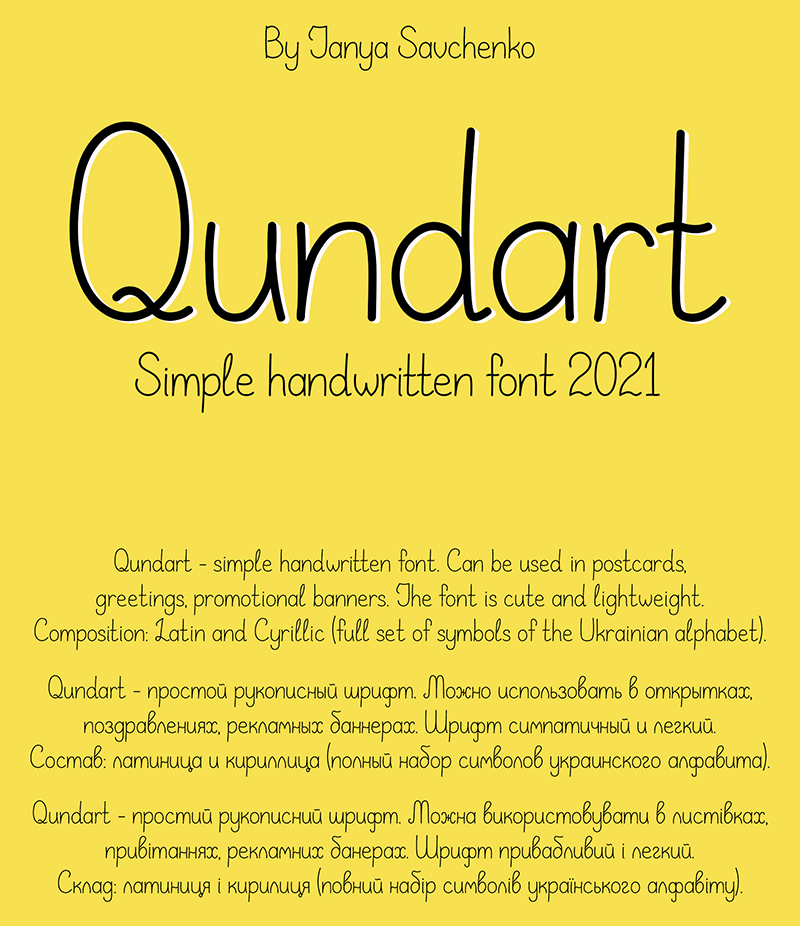
Preview and download Qundart Font. Created by Tanya Savchenko in Script Various styles with Demo license.
Font name: | Qundart |
Author: | Tanya Savchenko |
Hello, check out the new font Qundart. This is a free demo version of the font for personal use only. Buy the full version from the link https://www.myfonts.com/fonts/tanya-savchenko/qundart/ Qundart � simple handwritten font. Can be used in postcards, greetings, promotional banners. The font is cute and lightweight. Composition: Latin and Cyrillic (full set of symbols of the Ukrainian alphabet). View the font for more details here: https://www.behance.net/gallery/126010317/Qundart-simple-handwritten-font-%28latin-cyrillic%29 |